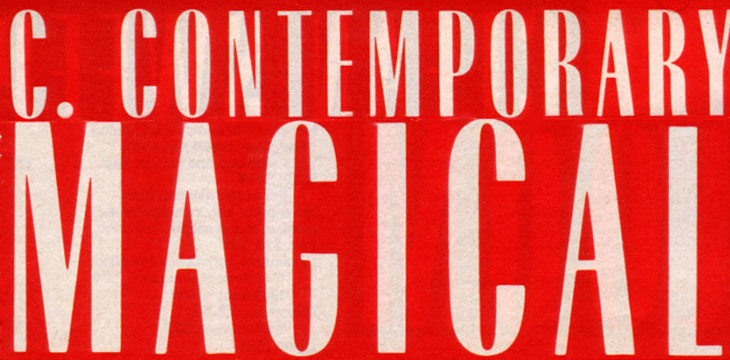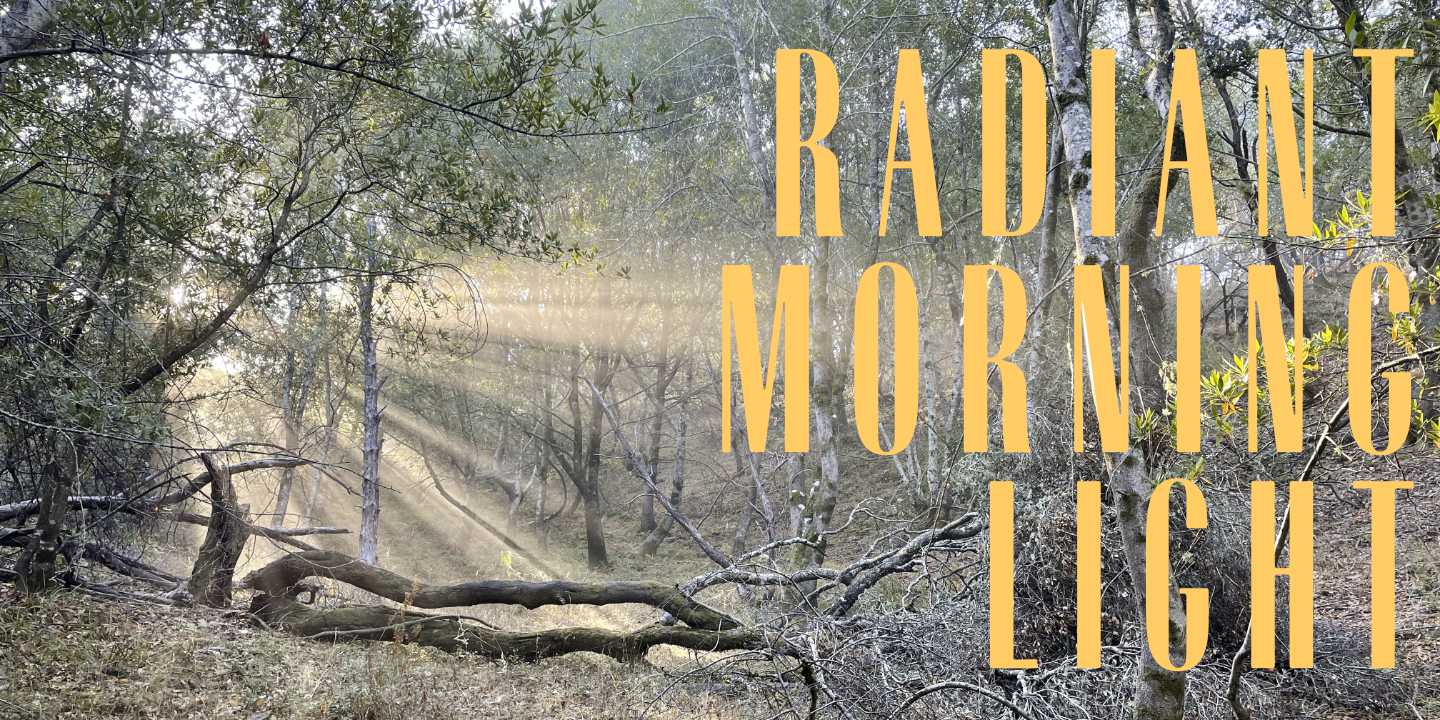
Radiant Extra Condensed CT Bold
My first commissioned typeface project was to digitize Radiant Bold Extra Condensed (originally designed by Robert Middleton in 1940) for use in a large department store's Sunday supplement to the San Francisco Examiner. The CastleType version of Radiant is the only one that supports the Cyrillic alphabet.